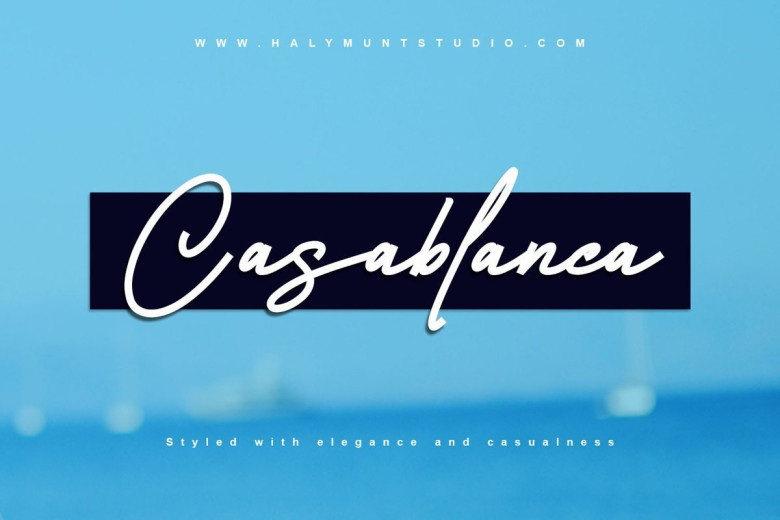
Casablanca Monoline Signature Script Font
Casablanca Font is a monoline signature style, elegant, classy, modern and natural like handwritten font. Great for any design, for business promotion stuffs, beautify your website, magazine, make your own digital signature, photo caption, social media post, and much more!